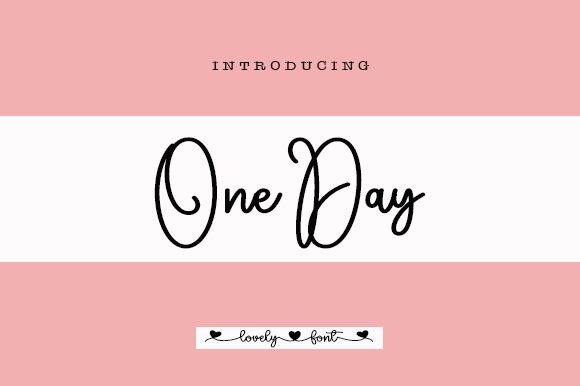
One Day
One Day, the newest addition to Wahyu Studio's font library, is a semi-light, semi-condensed handwritten font that exudes a charming and approachable vibe. Its unique blend of elegance and playfulness makes it perfect for various design projects such as wedding invitations, social media posts, branding materials, product packaging, and more. Its semi-condensed width allows for more text to be fitted into a limited space without sacrificing readability. Whether you're aiming for a whimsical or sophisticated look, One Day will surely add character and personality to your designs.